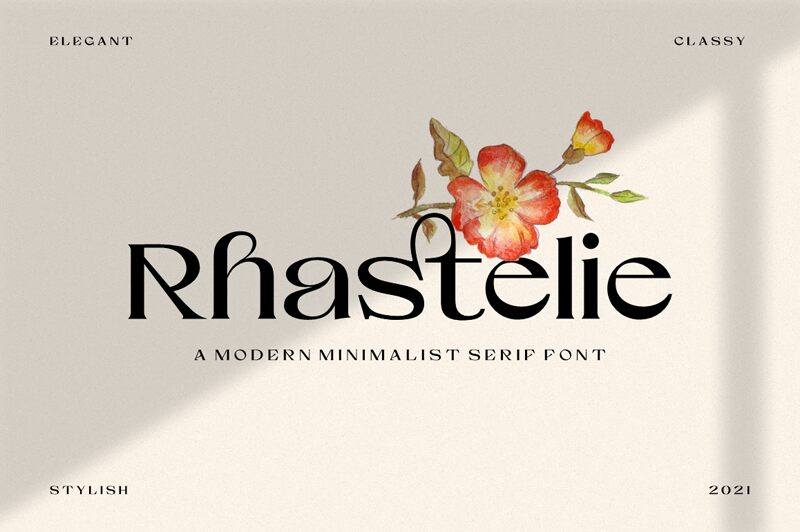
Rhastelie, a modern serif font designed by Risca Anitawati of ReyreyBlue, is the perfect choice for projects that require a touch of sophistication and class. With its expanded width, Rhastelie exudes confidence and dominance without being too overpowering. Its clean lines and elegant curves make it suitable for a variety of projects such as luxury branding, editorial design, or even wedding invitations. The unique combination of traditional serifs with a modern twist makes Rhastelie stand out from other serif fonts and adds a touch of individuality to any project. Upgrade your designs with the timeless beauty of Rhastelie.
Rhastelie
Risca Anitawati